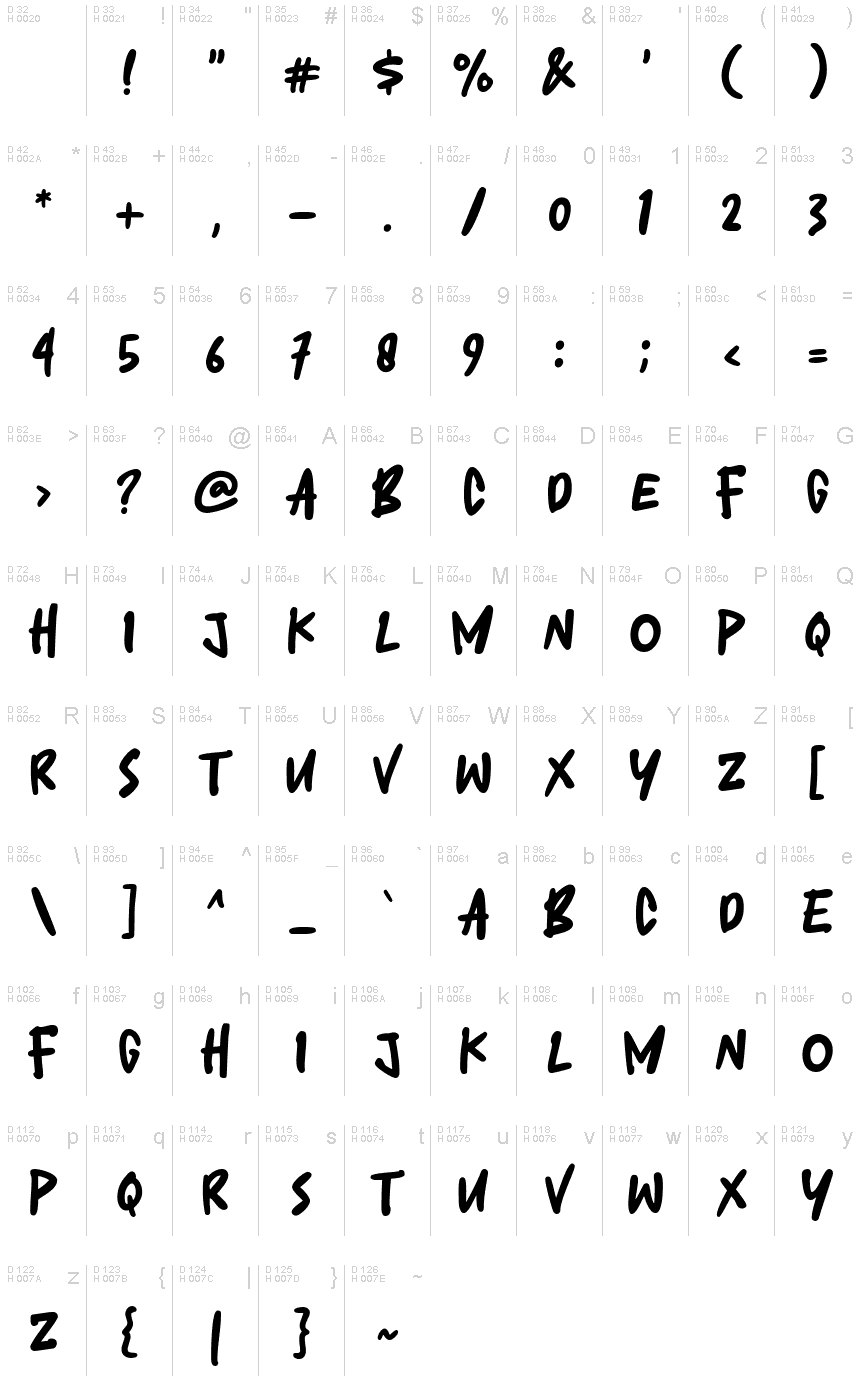
Laziness
Laziness, an exquisite creation by Khurasan, is a captivating semi-bold font that embodies the essence of a smooth brush. Its graceful strokes and effortless flow make it perfect for a myriad of projects. From modern calligraphy on wedding invitations to eye-catching headlines on fashion magazines, Laziness adds a touch of elegance and sophistication. Stand out with its unique style in logo designs for luxury brands or use it to create stunning social media graphics for lifestyle influencers. Laziness brings ease and creativity to any project, making it the go-to choice for those seeking a stylish and polished look.